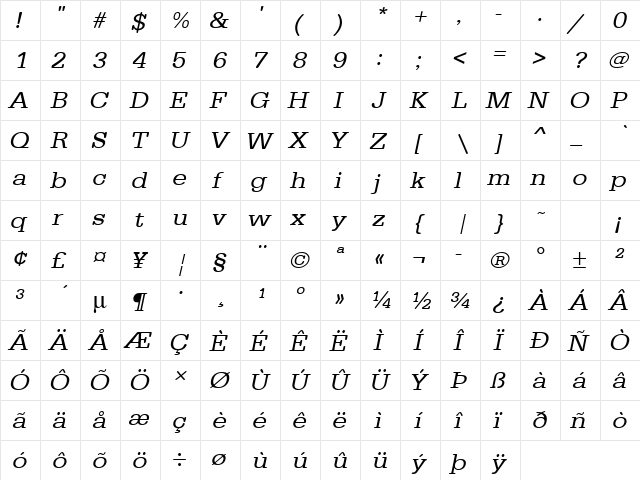
URWTypewriterTExtWid Oblique Font Preview
URWTypewriterTExtWid Oblique
URWTypewriterTExtWid Oblique Font Details
Design Context for URWTypewriterTExtWid Typeface
URWTypewriterTExtWid brings the precise, column-aligned rhythm of monospaced typography to designs that value technical clarity and systematic order. The dynamic lean of this cut emphasises speed and emphasis in any layout.
A natural fit for code editors, technical documentation, developer-focused branding, and terminal-inspired UI.
Pro Tip: Pair URWTypewriterTExtWid with a proportional sans for UI contexts where code-style labels and regular body copy need to coexist.